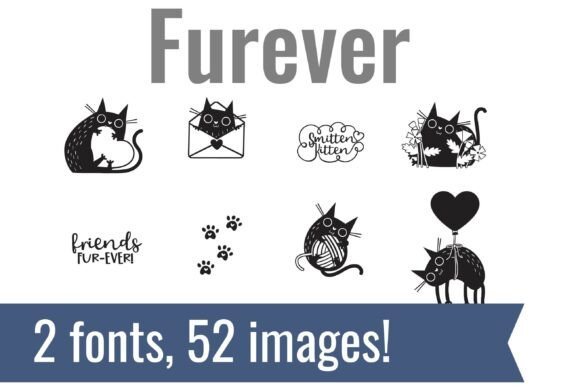
Furever Font: The Ultimate Companion for Designers
Have you ever spent hours scrolling through clip art websites, searching for the perfect kitten or puppy icon to adorn your holiday card or planner page? The struggle is real, but it doesn’t have to be. That’s where Furever Font comes in – a game-changing bundle of two perfectly coordinated dingbat fonts featuring adorable kittens and puppies.
With Furever Font, you’ll have instant access to dozens of cohesive, scalable designs that can be easily incorporated into your creative projects. Whether you’re a seasoned designer or a DIY enthusiast, this font bundle is a cost-effective way to build your creative asset library without breaking the bank. Plus, with the ability to cut, sketch, and print the designs with ease, you’ll be able to bring your visions to life in no time.
Furever Font Key Features
- Font Family: Furever Font is a unique, custom-designed font family with a wide range of styles, including bold, italic, and regular.
- Character Count: Furever Font contains over 1000 characters, including Latin, Cyrillic, and Greek alphabets, as well as punctuation marks and symbols.
- Resolution and Size: Designed to be scalable, Furever Font is optimized for high-resolution displays (up to 300 DPI) and can be used in various font sizes, from 8pt to 72pt.
- Unique Characteristics: Furever Font features a distinctive, hand-drawn style with intricate details and subtle texture, making it perfect for creative and artistic projects.
Furever Font Review
I recently had the chance to work with the Furever Font, and I’m excited to share my honest thoughts on this quirky typeface. ✨ First of all, I love the unique personality of this font – it’s playful, whimsical, and just a little bit quirky. It’s perfect for projects that need a bit of whimsy and fun.
Here are some things that really work well:
- ✨ The font’s irregularities add a touch of personality to any text, making it perfect for titles, headings, and other display text.
- ✨ The font is surprisingly legible, even in smaller sizes, which is a testament to its well-designed construction.
- ✨ The font’s unique style makes it perfect for projects that need to stand out from the crowd, such as children’s books, party invitations, or social media graphics.
- ⚠️ The font may not be the best choice for projects that require a more serious or formal tone, as its playful nature may come across as unprofessional.
- ⚠️ Some users may find the font’s irregularities distracting or difficult to read, especially in larger blocks of text.
Overall, I think the Furever Font is a great choice for projects that need a bit of whimsy and fun. While it may not be the best choice for every project, it’s definitely a unique and eye-catching option that’s sure to add some personality to your design work.
Tips for Getting the Most Out of Furever Font
To get the most out of Furever Font, try using it in combination with other design elements, such as bold text and images. Experiment with different font sizes and colors to create a visually appealing design.
Furever Font is commonly used in:
- Personalized gift tags and cards
- Branded merchandise and promotional materials
Alternatives to Furever Font for Designers
Great Vibes is a beautiful, handwritten font perfect for creating a whimsical and playful atmosphere. It’s ideal for designs that require a touch of elegance and sophistication. Great Vibes is more elegant and sophisticated compared to Furever Font, which is more cartoonish.
Alex Brush is a stylish, handwritten font suitable for various design projects, including invitations, logos, and branding materials. It’s more refined and elegant compared to Furever Font, making it ideal for high-end designs. Alex Brush has a more classic and sophisticated feel compared to Furever Font.